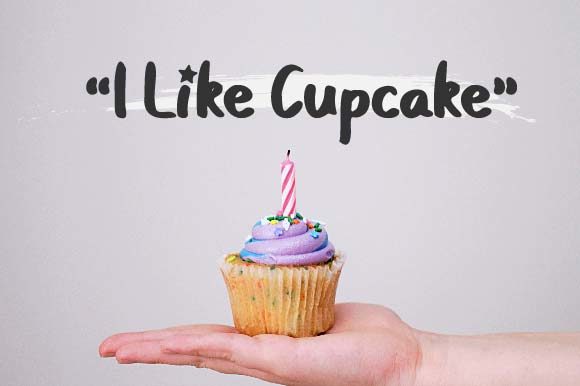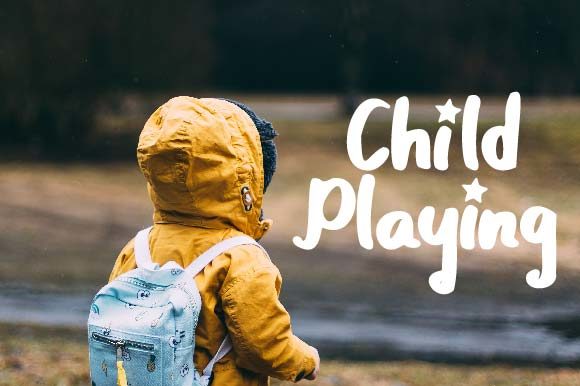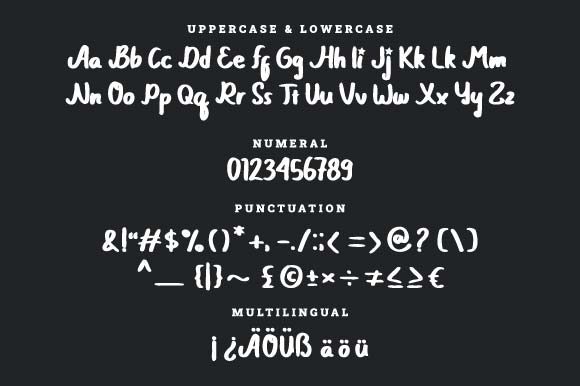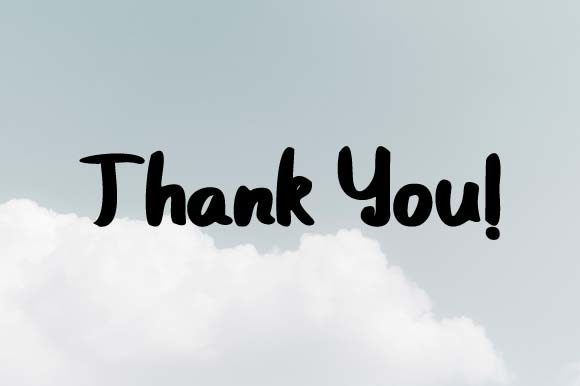
Introduction to Bintang Kecil Font
Bintang Kecil is a fun and playful display font.
It can be used for various purposes such as logos, headings, t-shirts, letterhead, signage, labels, news, posters, badges and so much more .
Key Features of Bintang Kecil Font
Why Choose Bintang Kecil Font?
Bintang Kecil Font offers exceptional quality and versatility, making it a valuable addition to your design toolkit. Whether you’re creating for personal projects or commercial use, Bintang Kecil Font delivers professional results.